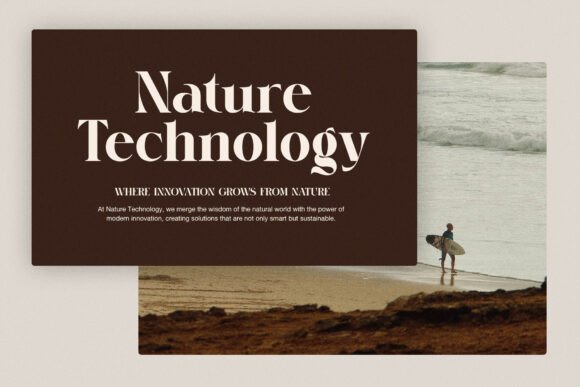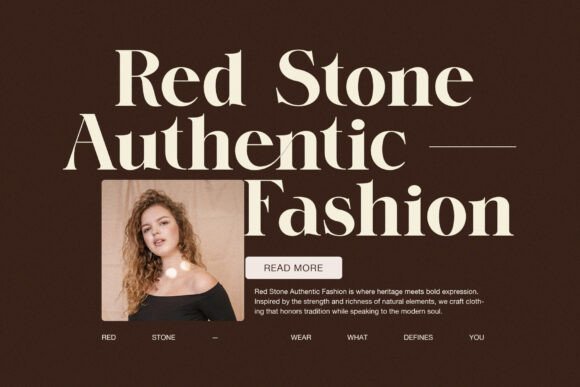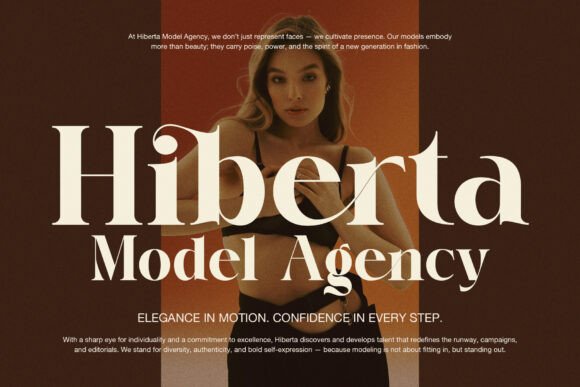
Introduction to Quling Font
Have you ever found yourself staring at a blank canvas, eager to bring a creative project to life, but struggling to find the perfect font to set the tone? For designers, this is a common challenge. But what if you could unlock a design resource that effortlessly combines sophistication with a dash of creativity? Enter Quling Font, a modern serif typeface that’s about to revolutionize your design process.
| 👤 Author | Graphicxell |
As a versatile and premium font, Quling Font is the perfect companion for designers seeking to elevate their projects with a stylish and timeless aesthetic. With its sleek lines, refined curves, and distinctive serif details, this font is sure to capture attention while maintaining effortless readability.
Whether you’re working on a logo design, brand identity, or web design project, Quling Font’s harmonious balance between classic serif structure and contemporary flair makes it an invaluable asset. And the best part? It’s available for a free download, allowing you to unleash your creativity without any constraints.
Key Features of Quling Font
- High-quality, professional font designed for creative projects and various design resources.
- Unique characteristics include a modern, elegant aesthetic and a wide range of glyph combinations for creative expression.
Honest Review: Quling Font
I recently had the chance to experiment with Quling Font, and I must say it’s a lovely addition to any creative project. This font offers a unique blend of traditional and modern elements, making it a versatile design resource.
What works well: ✨ The Quling Font’s intricate strokes and delicate curves are reminiscent of traditional Chinese calligraphy, yet it still maintains a level of sophistication that makes it suitable for modern designs. The font also comes in a range of weights, from light to bold, which makes it easy to adapt to different design requirements.
Limitations: ⚠️ While Quling Font is a high-quality design resource, I did find it to be a bit limited in terms of character set. However, this is not a major issue for most design projects.
Overall, I’m impressed with Quling Font and would definitely recommend it to designers looking for a unique and versatile font. With its high quality and free download option, it’s a great addition to any design arsenal.
- Unique blend of traditional and modern elements
- Range of weights from light to bold
The Quling Font is a versatile and high-quality design resource perfect for creative projects. With its transparent background and elegant style, it’s ideal for use in various applications.
To maximize the use of Quling Font, experiment with different font sizes, styles, and combinations to achieve the desired visual effect.
The Quling Font is suitable for a variety of projects, including:
- Business presentations
- Marketing materials
- Graphic designs
- Web designs